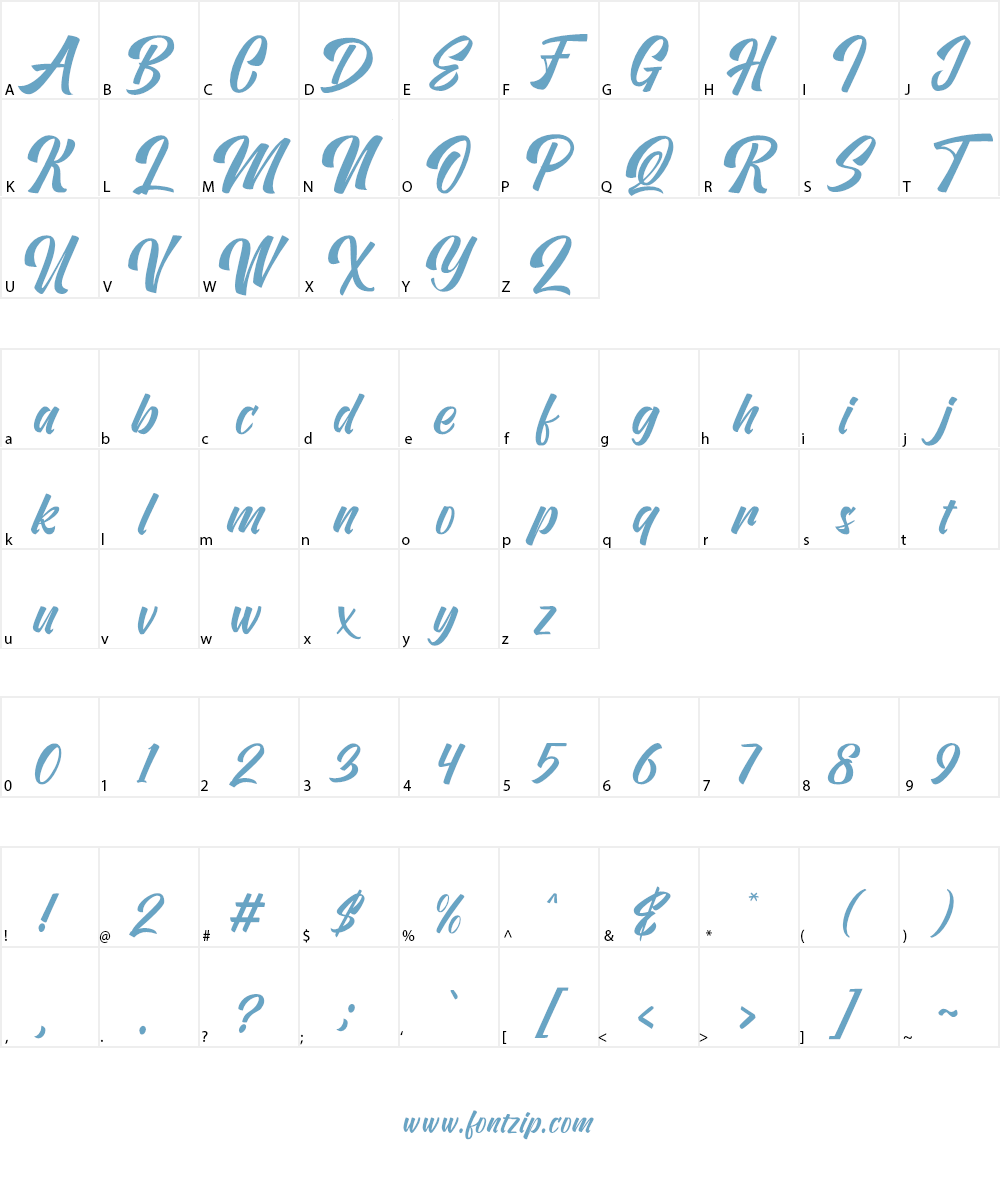
Vervelle is a clean and unconnected script,
made with brush pen, and yes, this font doesn't use auto trace,
to give minimum node in every glyph. these fonts included: Uppercase, Lowercase, Numeral, and Symbol.
this font is very Suitable for; Packing, Logos, Labels, Posters, Shirt Designs, Inspirational Quotes, Magazine, And Much More.